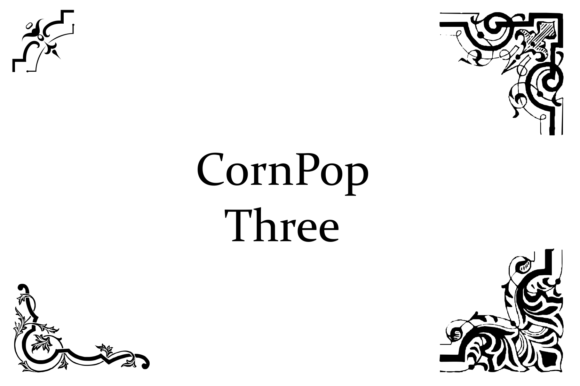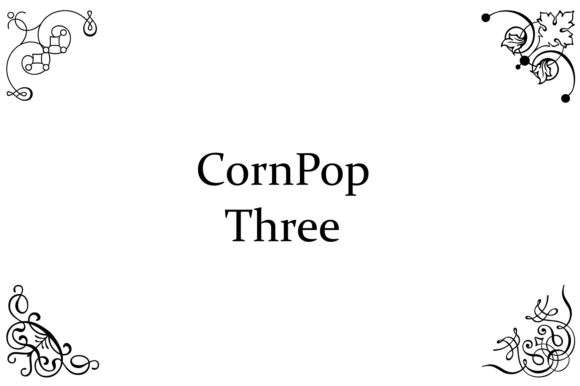
CornPop Three Font: A Fun and Decorative Dingbat for Designers and Crafters
The CornPop Three font is a delightful dingbat that has taken the design world by storm. This fun and quirky font features a variety of decorative corns that can add a touch of whimsy and personality to any design project. In this article, we’ll take a closer look at the CornPop Three font, its features, and how designers and crafters can make the most of this exciting new font.
The CornPop Three Font: A Brief Overview
The CornPop Three font is a dingbat font that features a range of decorative corns, each with its own unique design and character. The font is perfect for designers and crafters looking to add a touch of fun and personality to their projects. Whether you’re working on a craft project, a branding campaign, or simply looking for a unique font to use in your designs, the CornPop Three font is sure to impress.
Key Features of the CornPop Three Font
- Variety of Decorative Corns: The CornPop Three font features a wide range of decorative corns, each with its own unique design and character.
- Fun and Quirky: The font is perfect for designers and crafters looking to add a touch of whimsy and personality to their projects.
Design Ideas Using the CornPop Three Font
The CornPop Three font is a versatile font that can be used in a variety of design projects. Here are a few ideas to get you started:
- Craft Projects: Use the CornPop Three font to add a touch of personality to your craft projects, such as scrapbooking, card making, and DIY gifts.
- Branding Campaigns: Use the font to create unique and eye-catching branding campaigns, such as logos, business cards, and brochures.
- Social Media Graphics: Use the font to create fun and engaging social media graphics, such as Facebook posts, Instagram stories, and Twitter headers.
- Packaging Design: Use the font to create eye-catching packaging designs, such as labels, stickers, and product packaging.
Tips and Tricks for Using the CornPop Three Font
Here are a few tips and tricks to help you get the most out of the CornPop Three font:
- Experiment with Different Colors: The CornPop Three font looks great in a variety of colors, so don’t be afraid to experiment and find the perfect color scheme for your project.
- Mix and Match: Mix and match different corn designs to create a unique and eye-catching design.
- Use it in Combination with Other Fonts: Use the CornPop Three font in combination with other fonts to create a unique and visually appealing design.
The CornPop Three font is a fun and decorative dingbat that is perfect for designers and crafters looking to add a touch of personality to their projects. With its variety of decorative corns, ease of use, and commercial use license, this font is sure to be a hit with designers and businesses alike. Whether you’re working on a craft project, a branding campaign, or simply looking for a unique font to use in your designs, the CornPop Three font is a great choice.